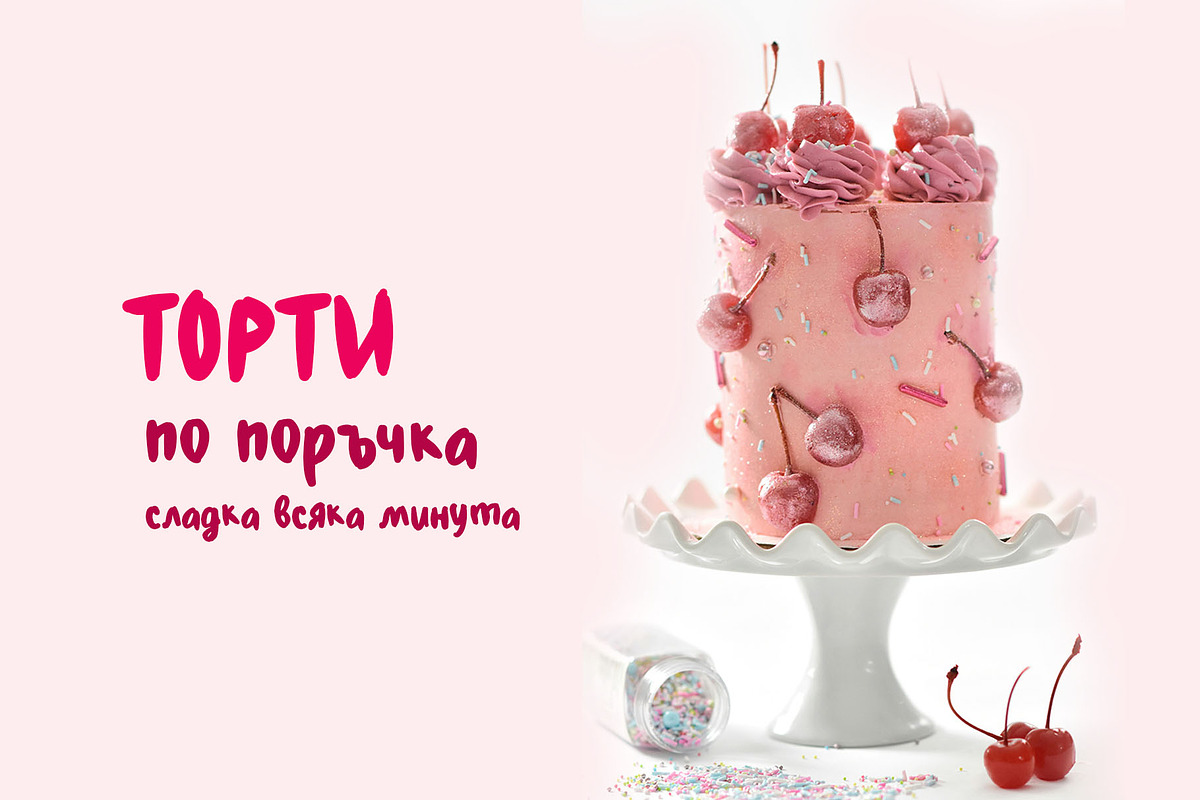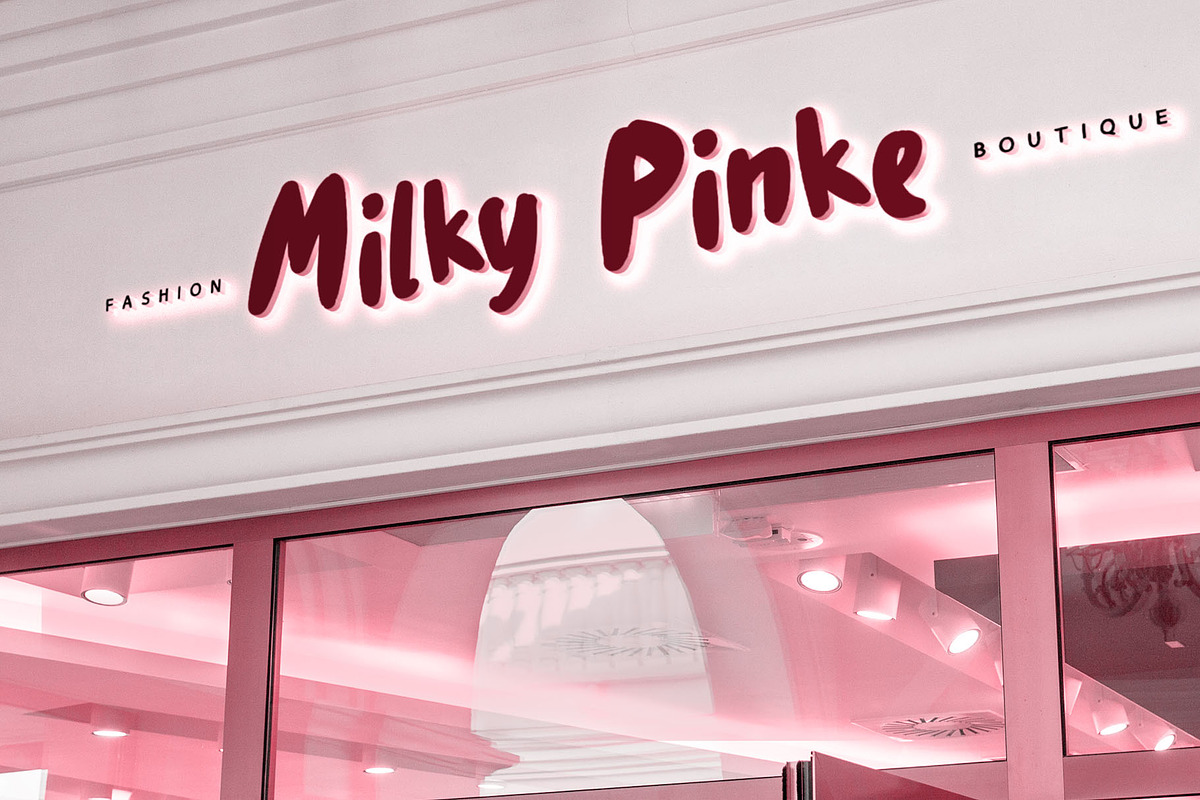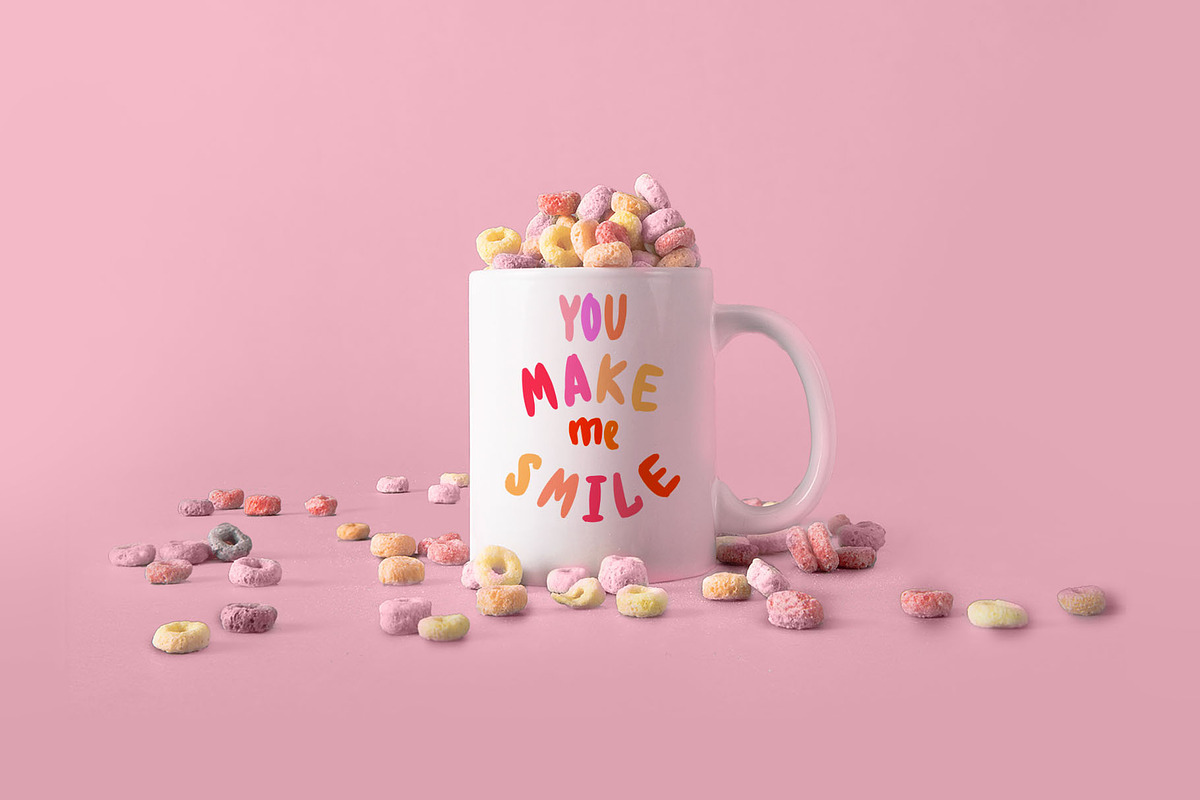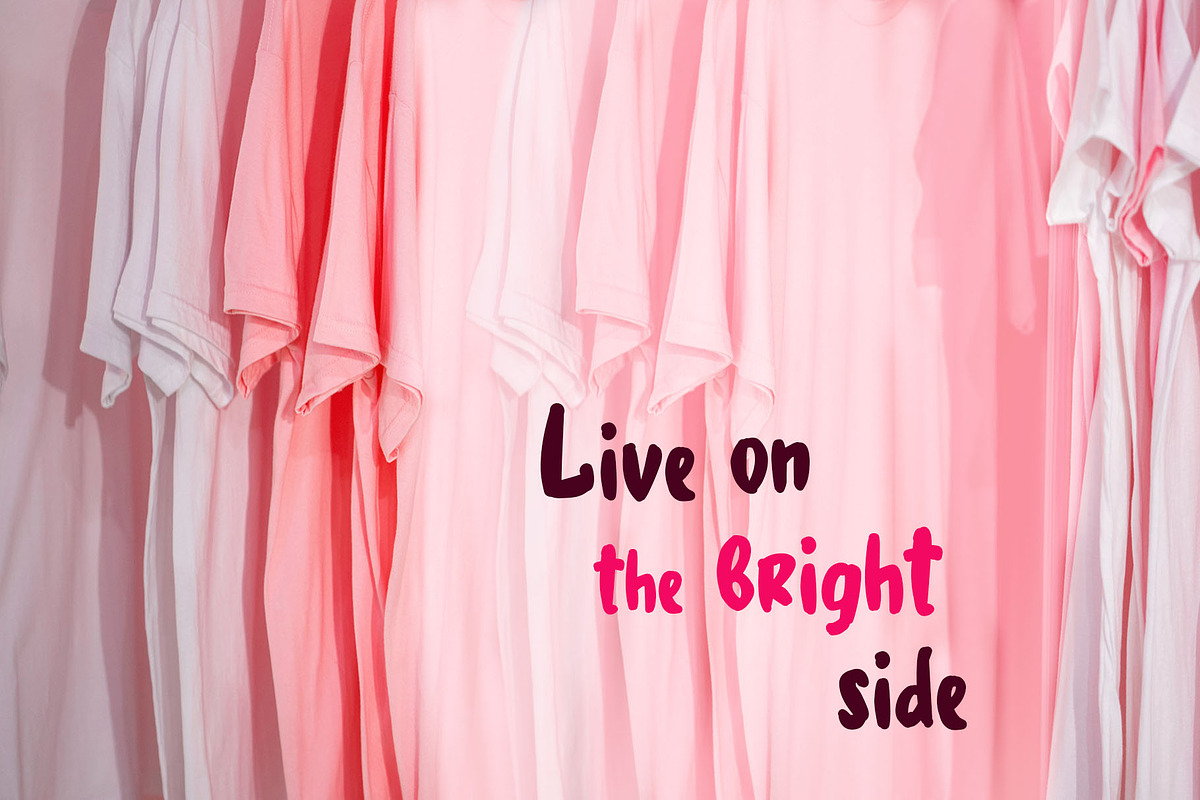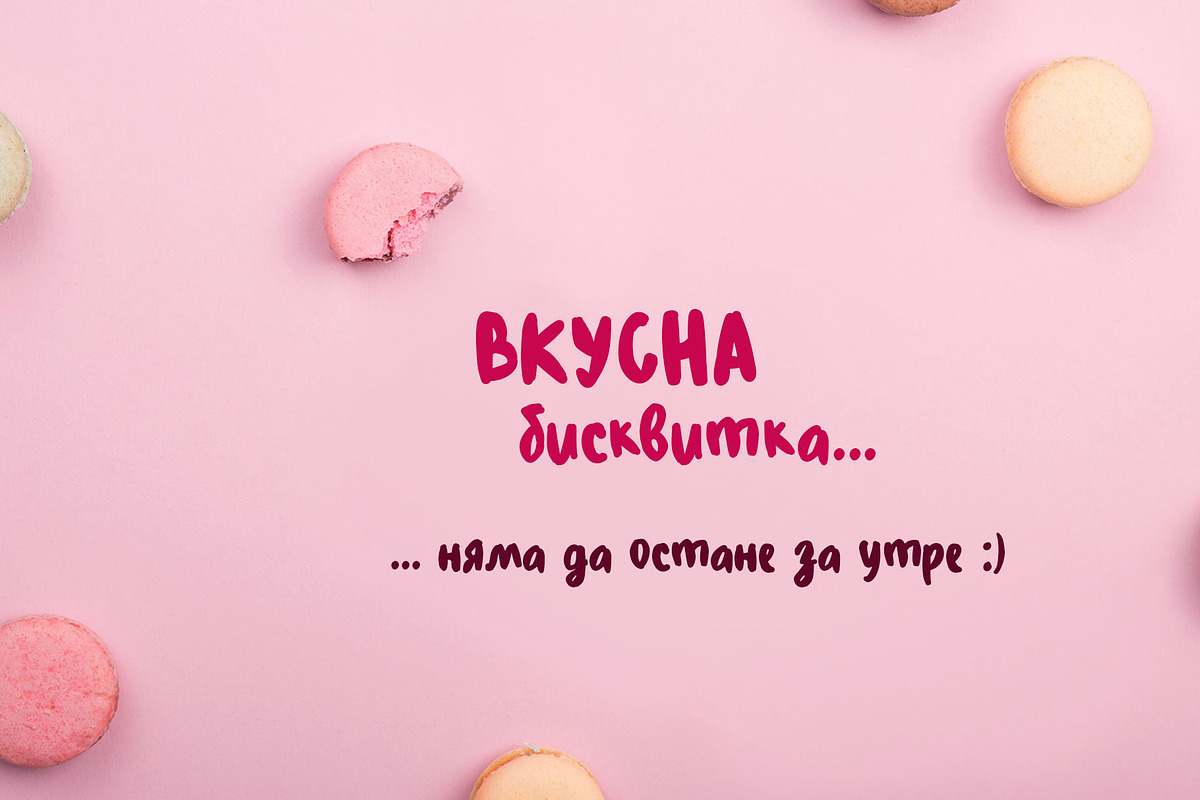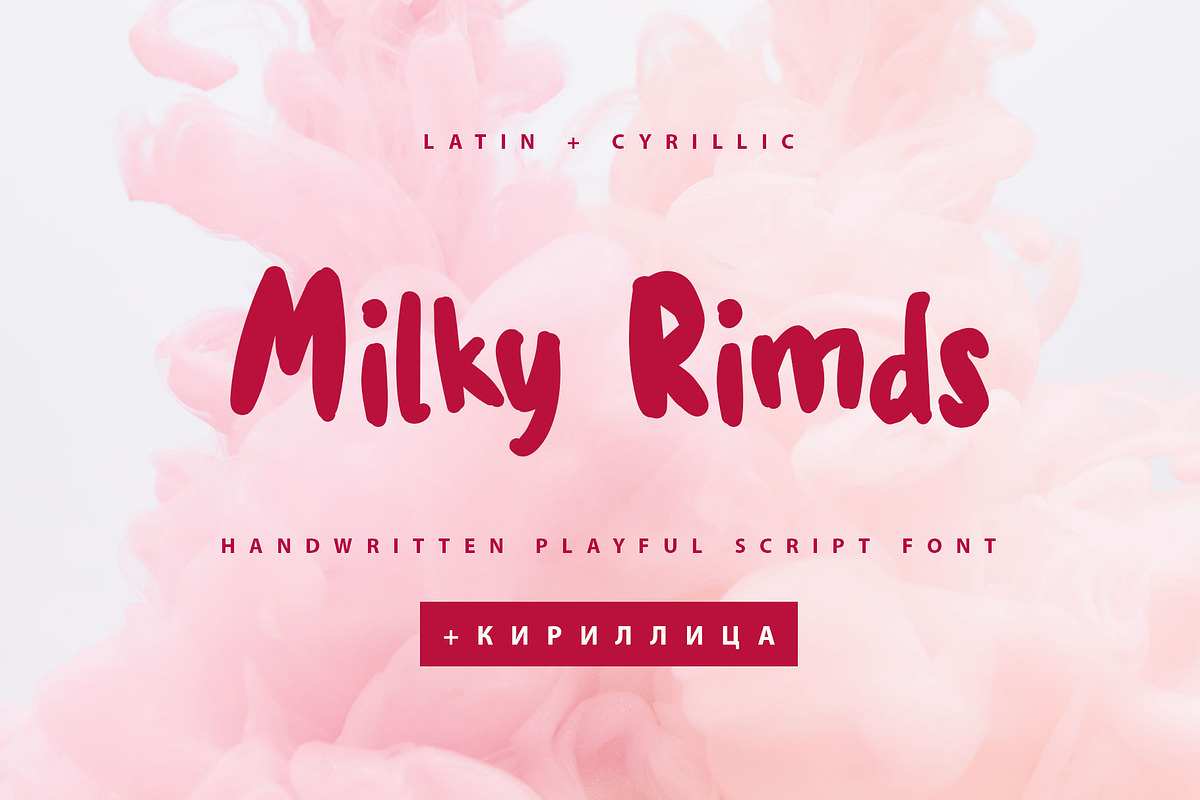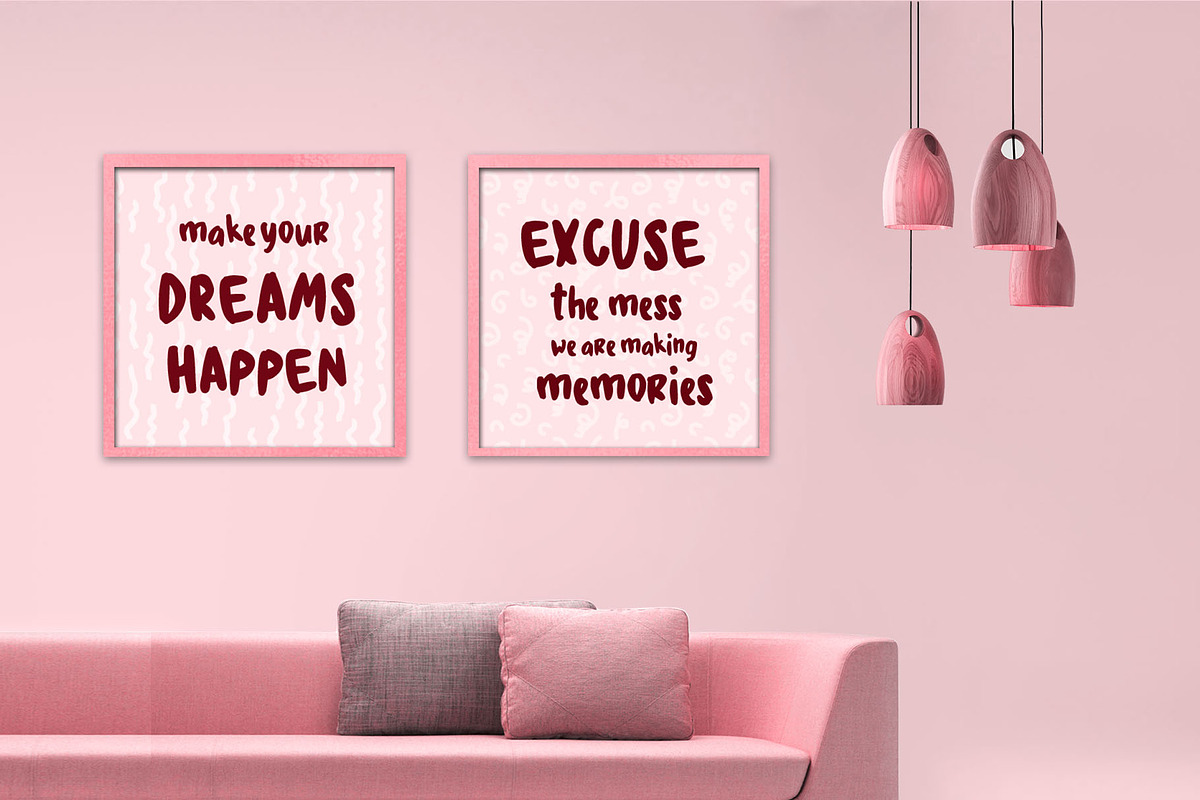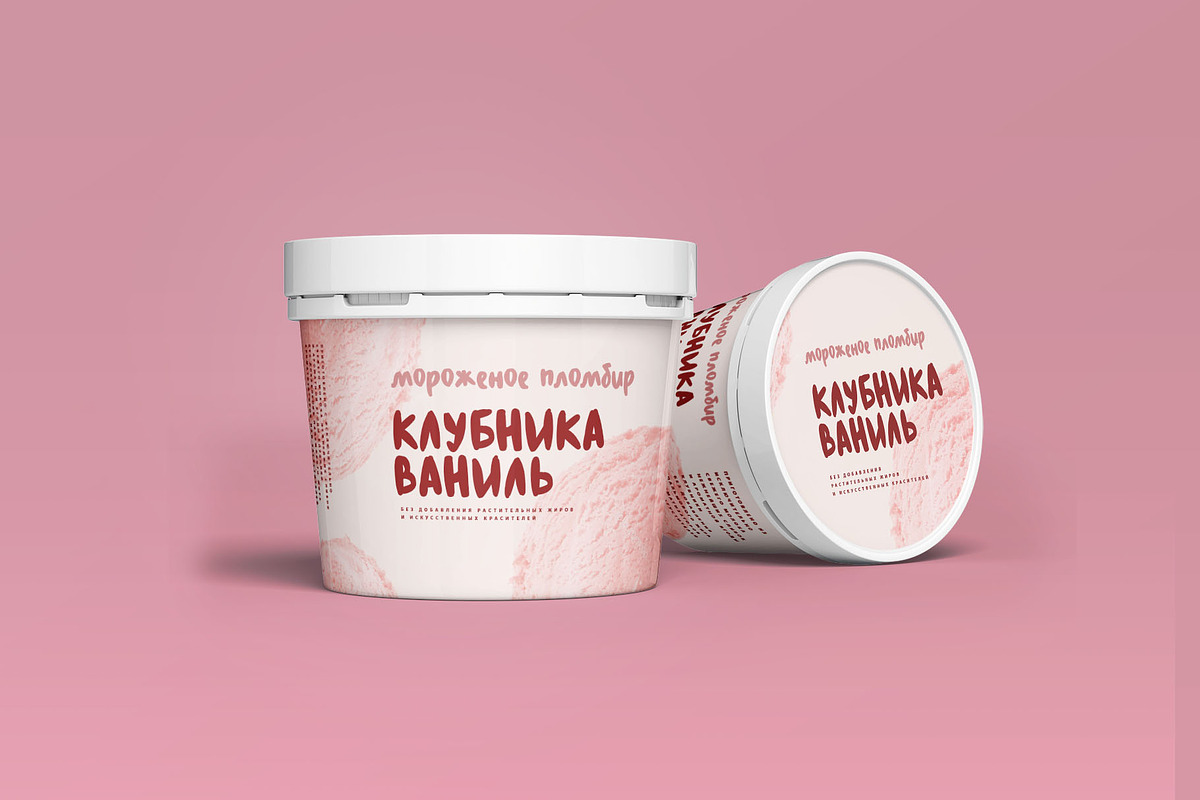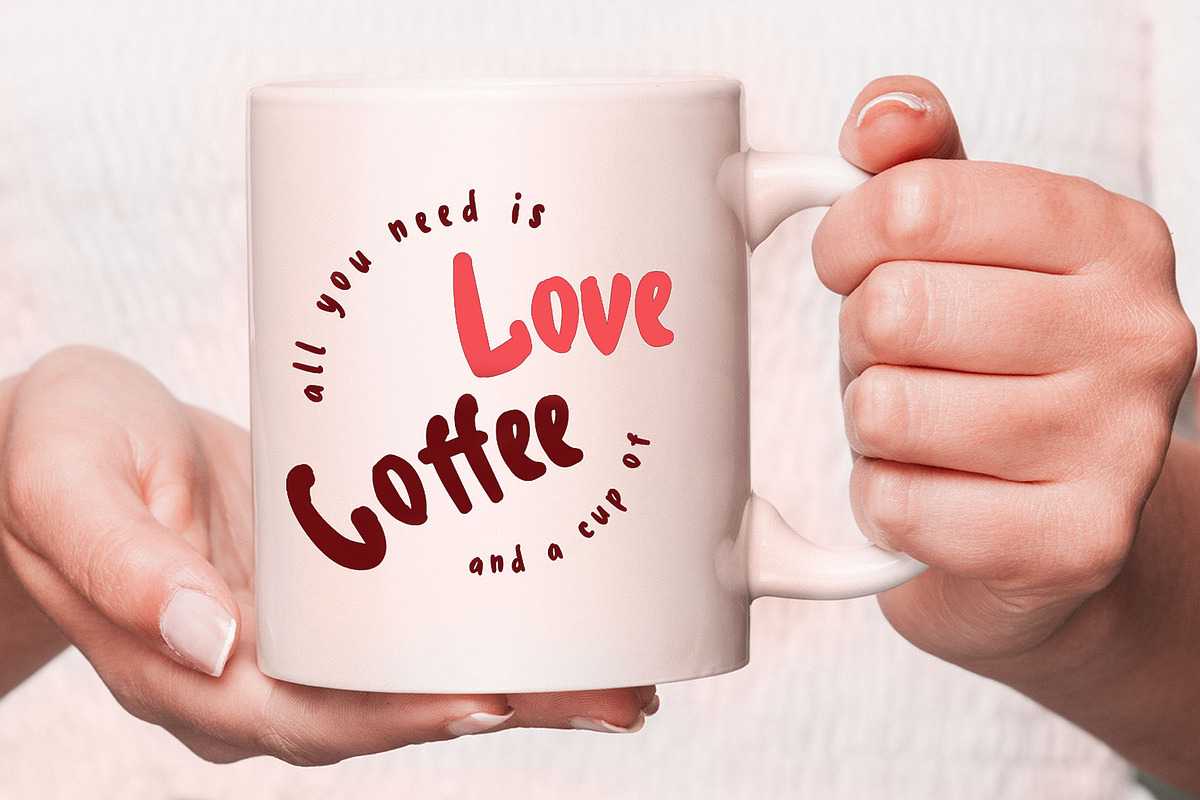
Milky Rimds Cyrillic Playful Script
Milky Rinds Cyrillic is a playful script font that will look great on all your designs, branding materials, logos, pretty teenage stickers, business cards, Insta quotes, fashion sketches, and much more.
Multilingual Support for 34 languages: Latin glyphs for Afrikaans, Albanian, Basque, Bosnian, Catalan, Danish, Dutch, English, Estonian, Faroese, Filipino, Finnish, French, Galician, Indonesian, Irish, Italian, Malay, Norwegian Bokmål, Portuguese, Slovenian, Spanish, Swahili, Swedish, Turkish, Welsh, Zulu.
Cyrillic glyphs support Ukrainian, Belorussian, Bulgarian, Russian Mongolian, and Kazakh languages.